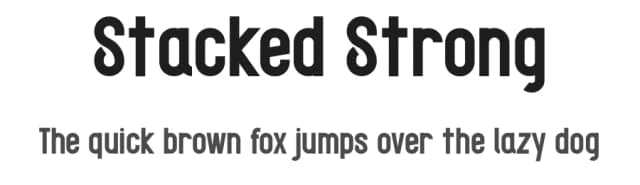
About Rowland Font
Rowland Specifications
| Font Family | Rowland |
| Full Name | Rowland Bold |
| Glyph Count | 111 glyphs |
| PostScript Name | RowlandBold |
| Designer | Muhammad Deyan S & Muhamad Nouval fr |
Rowland supports 201 languages.
Rowland Font is a versatile sans-serif font that works for both headings and body text. Pair it with a contrasting serif or slab serif font to add visual interest and a clear distinction between titles and body copy.